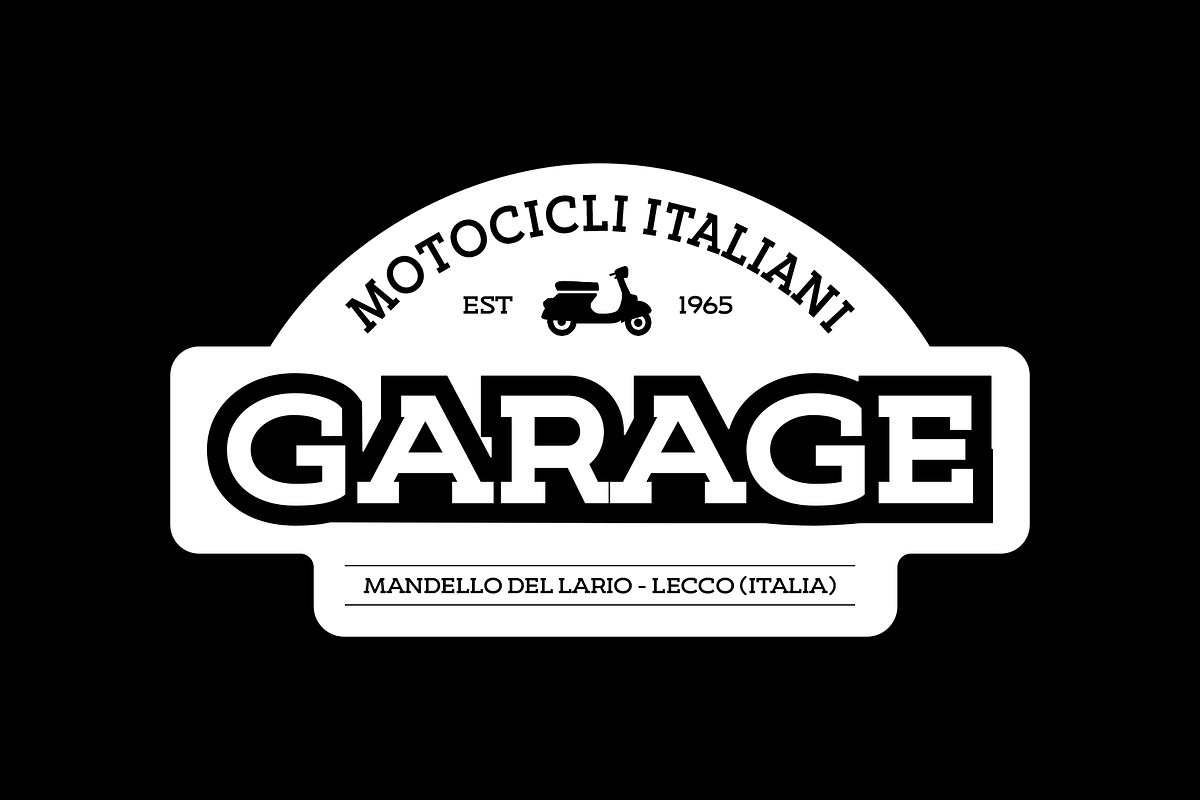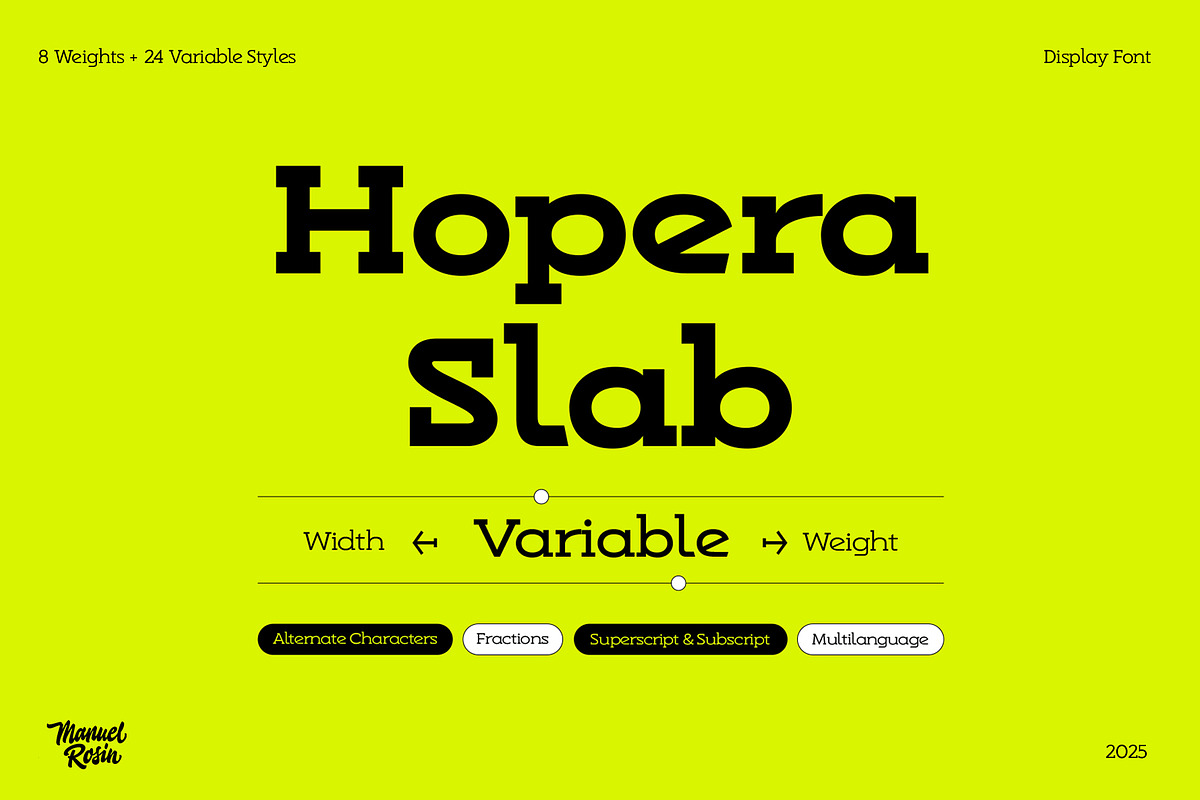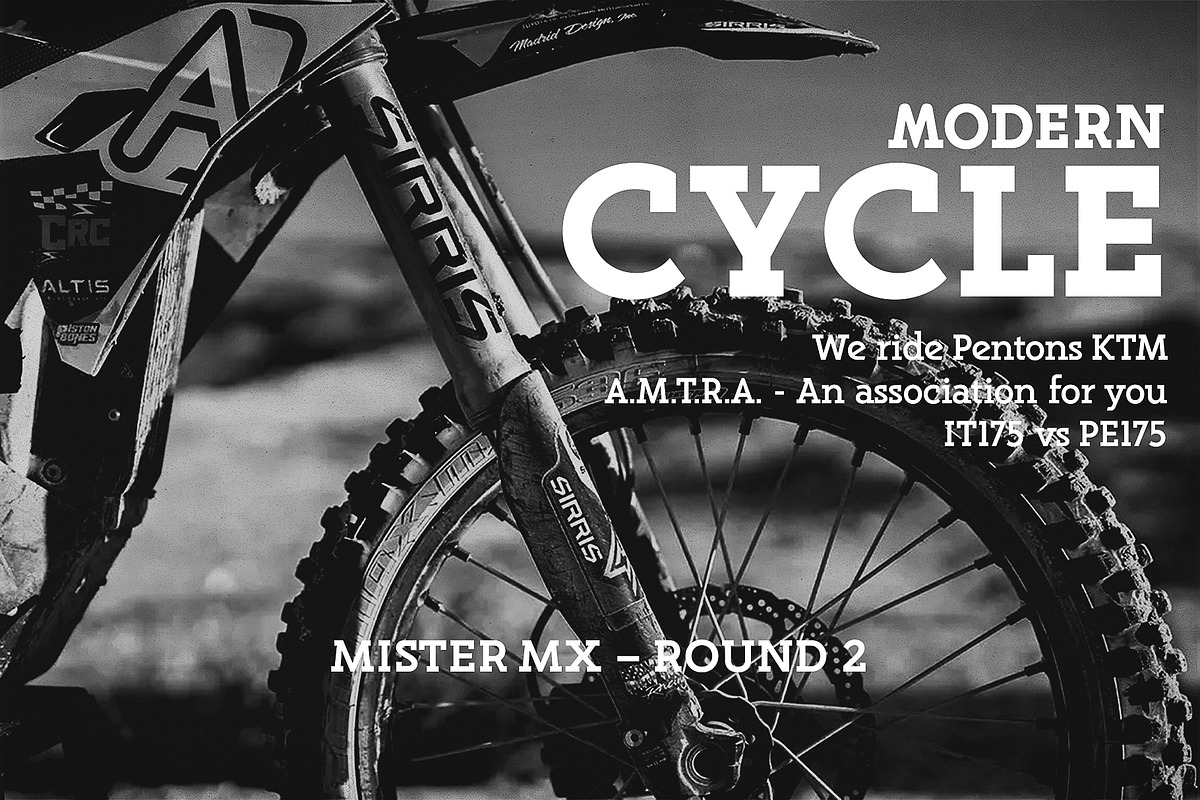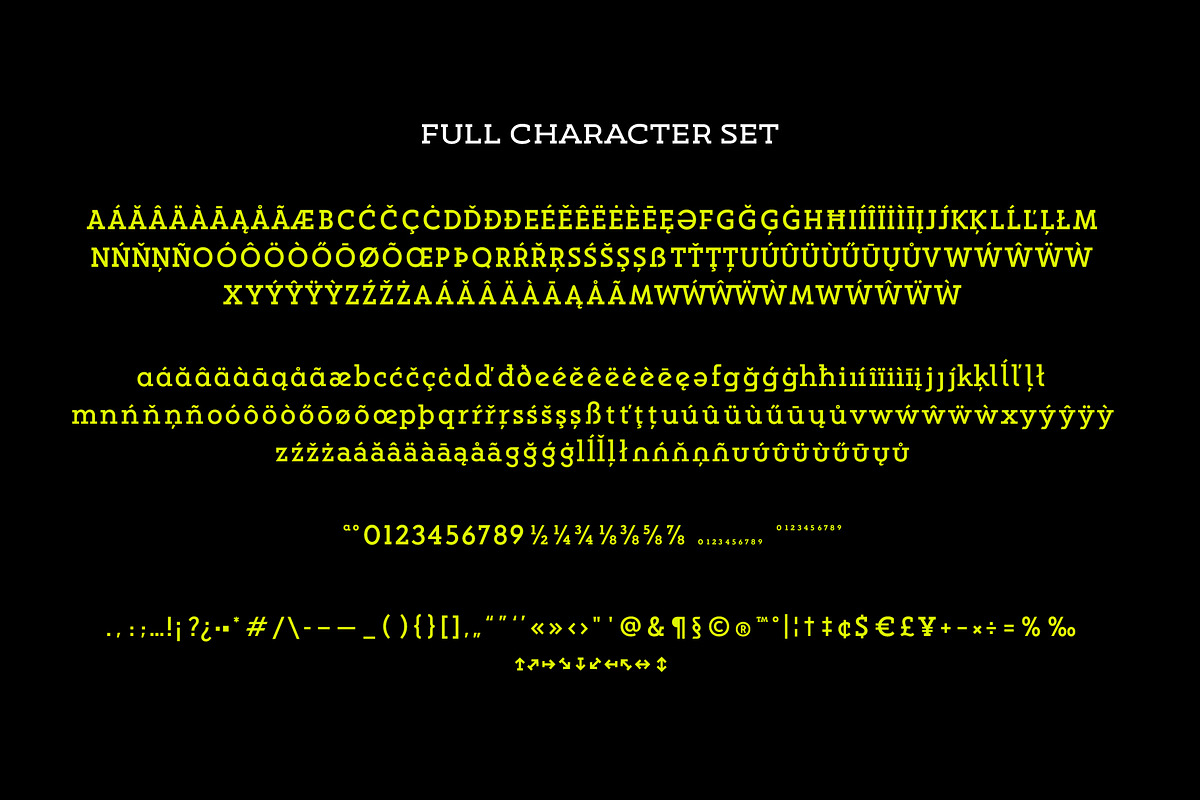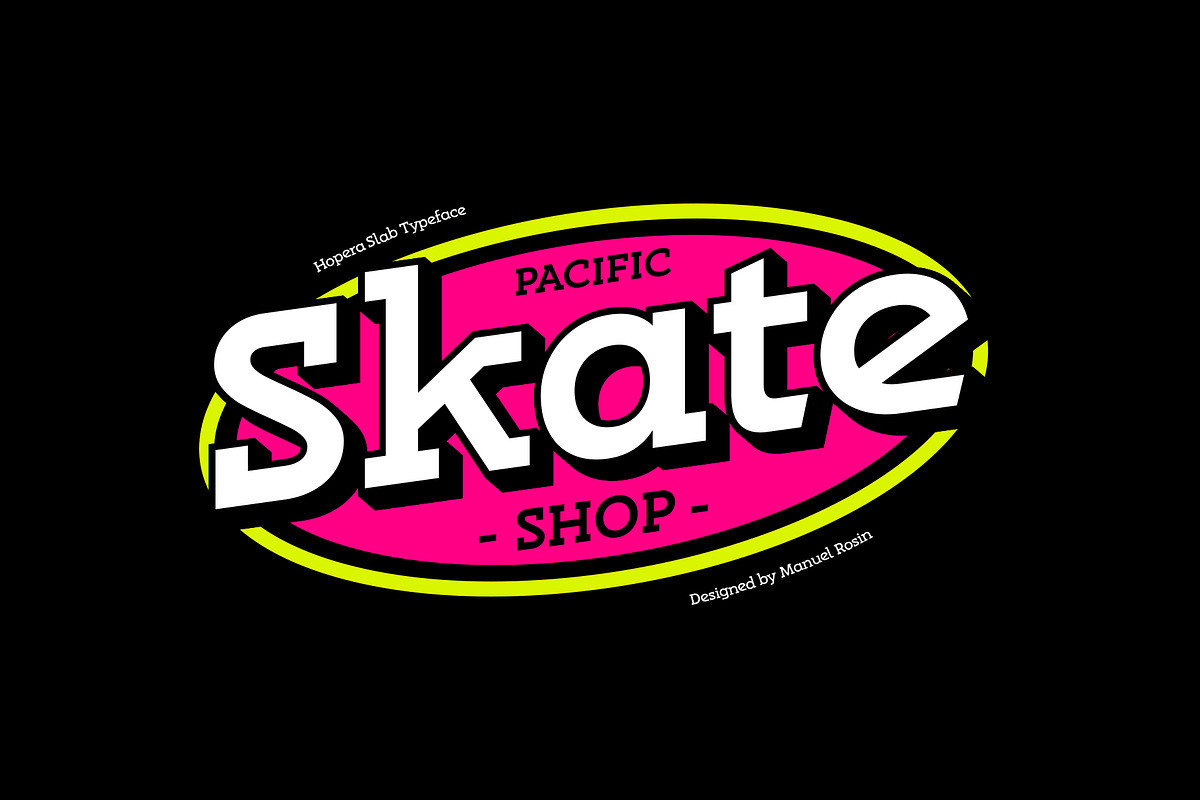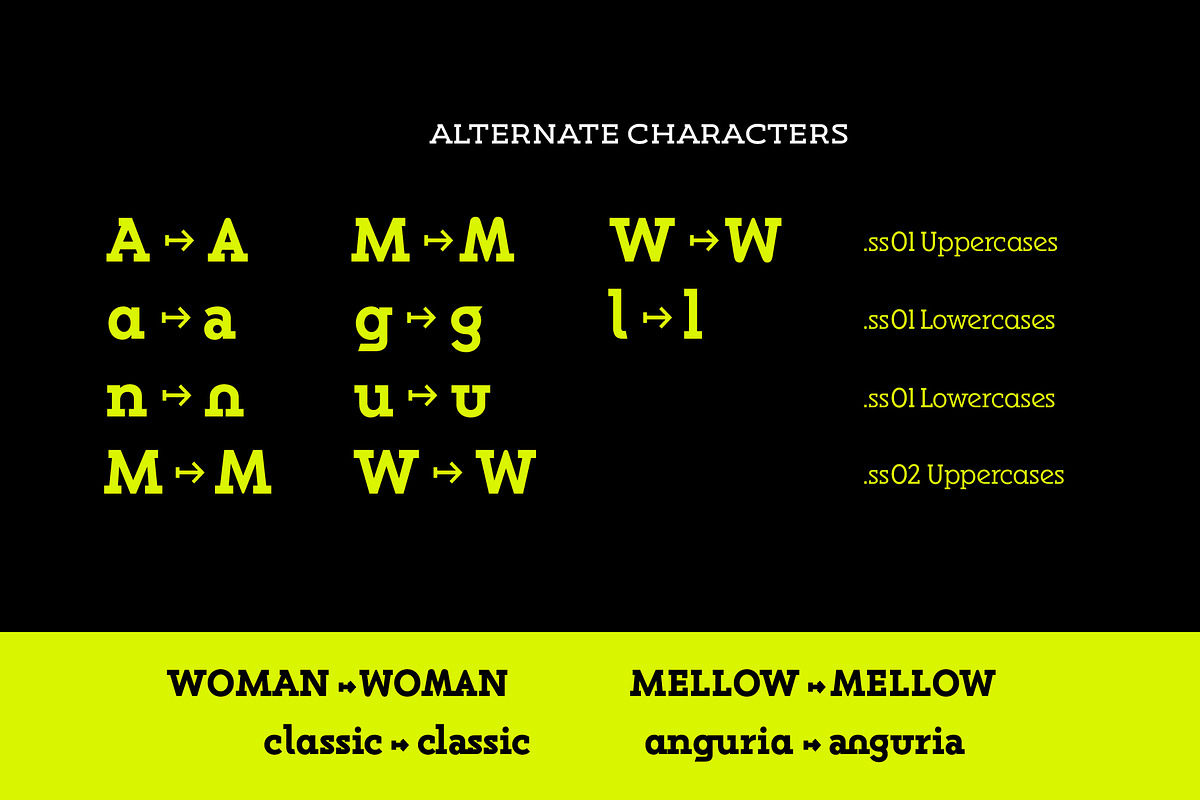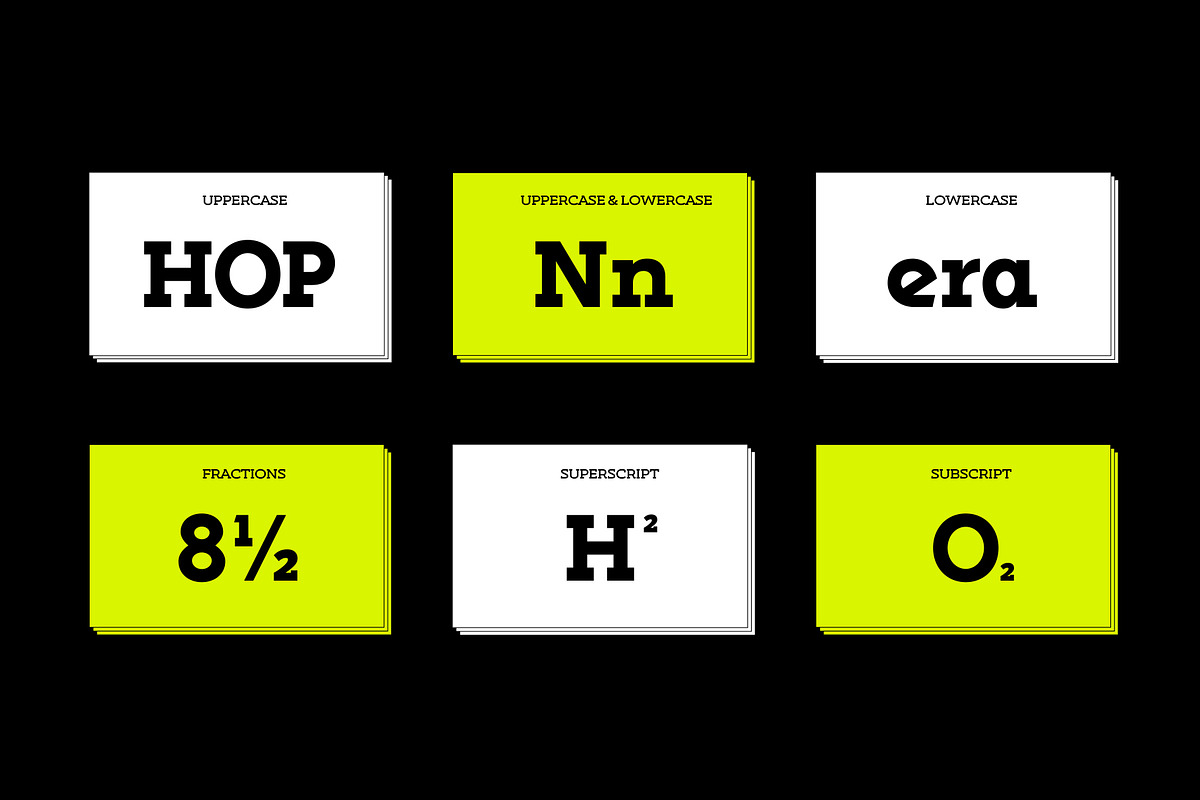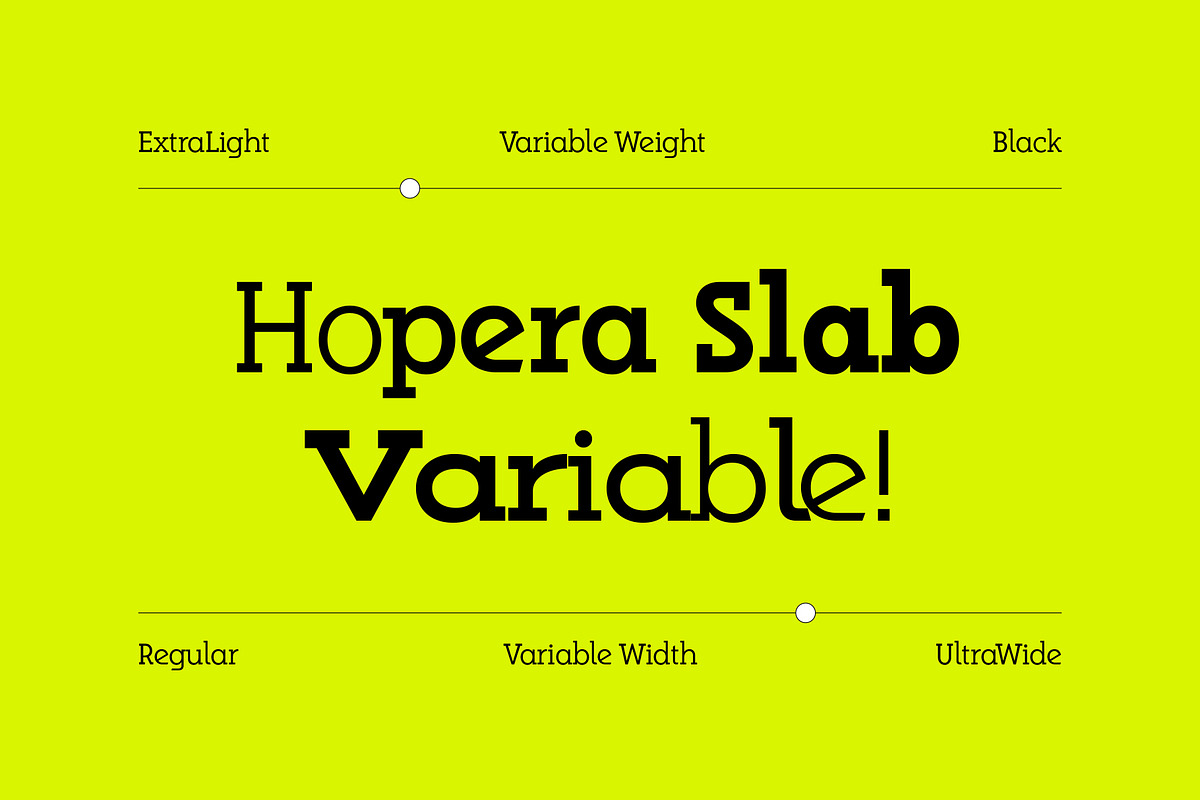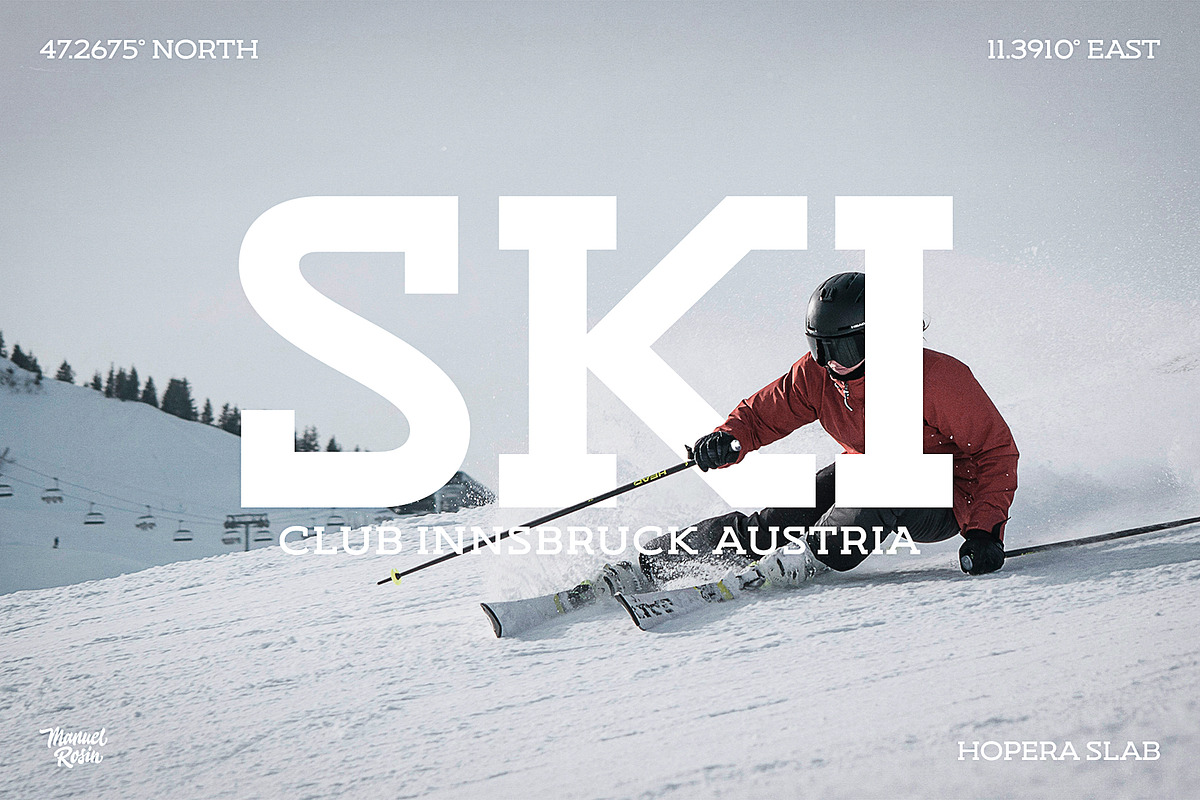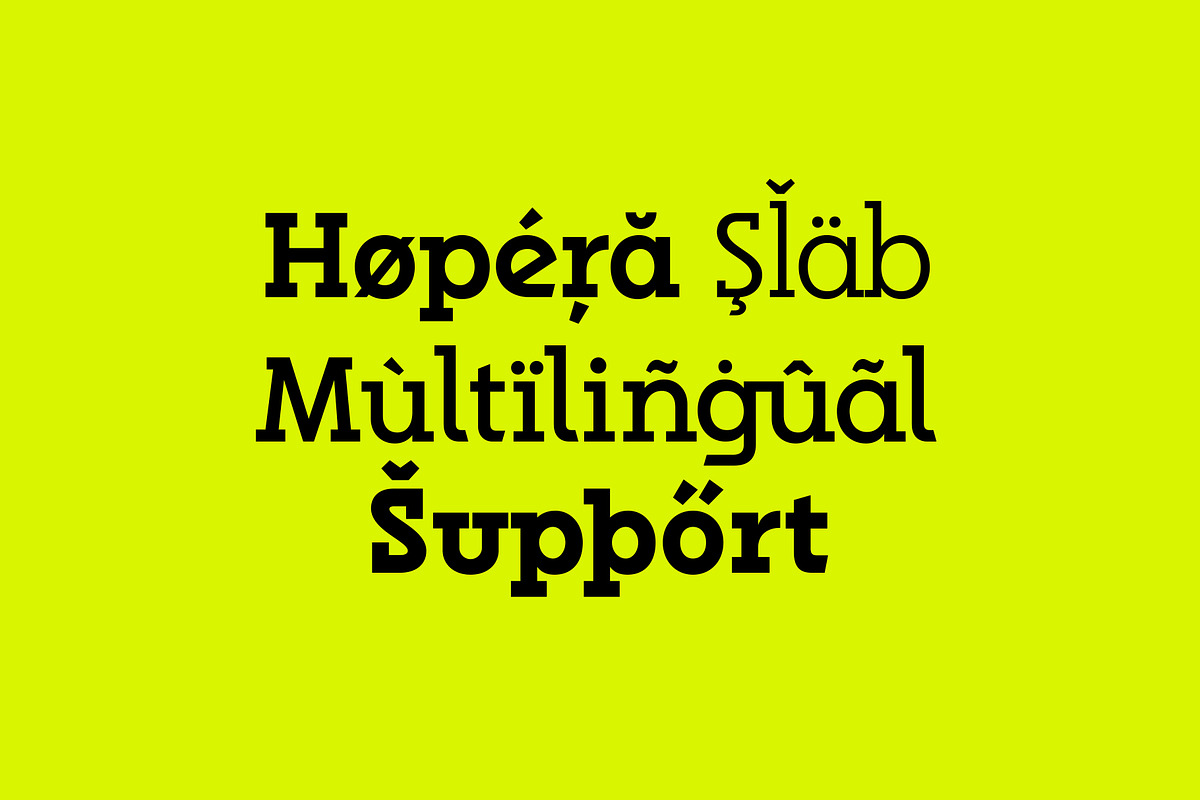
Hopera Slab Variable
Hopera Slab is a contemporary slab serif typeface infused with the bold spirit of 1980s typography. Its strong, geometric structure is enriched with subtle retro details, especially visible in select uppercase and lowercase characters, giving it a distinctive personality without sacrificing readability.
Designed as a variable font, Hopera Slab offers three distinct width options, allowing designers to fine-tune its presence for headlines, branding, editorial layouts, or digital interfaces. The slab serifs add a confident, grounded feel, while the clean proportions ensure versatility across print and screen. Hopera Slab bridges the gap between nostalgic charm and modern functionality, making it a typeface that feels both familiar and refreshingly new.
- Alternative characters
- Fraactions
- Subscript and Superscript
- Multilanguage support (over 240+ languages)